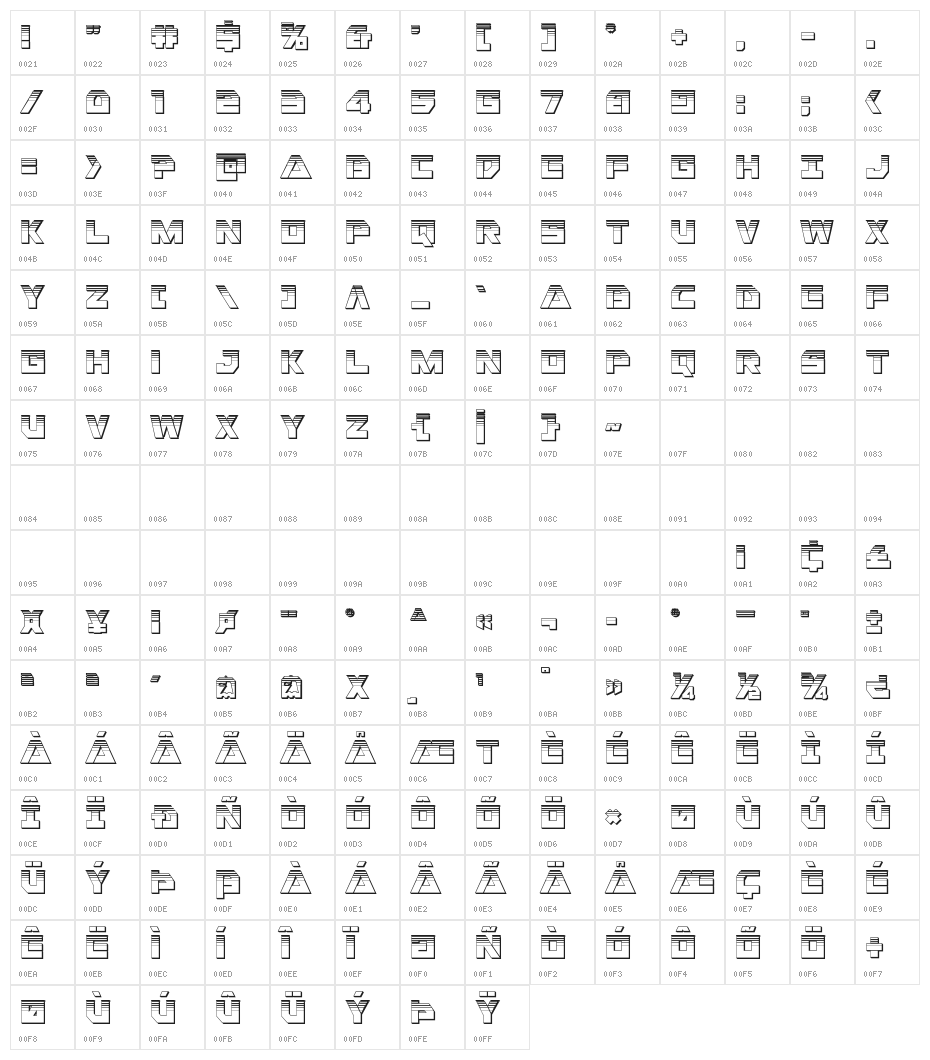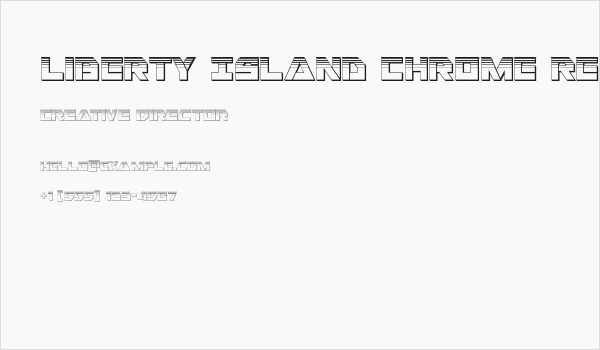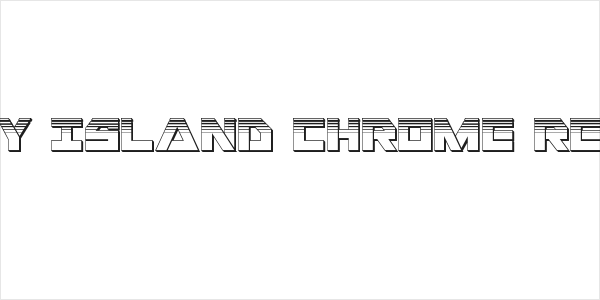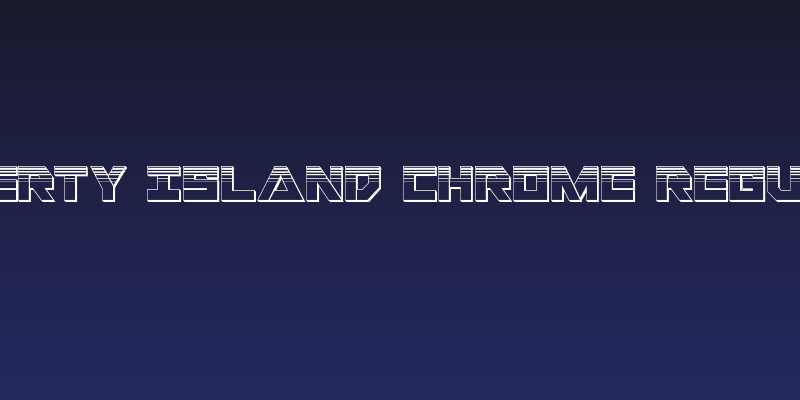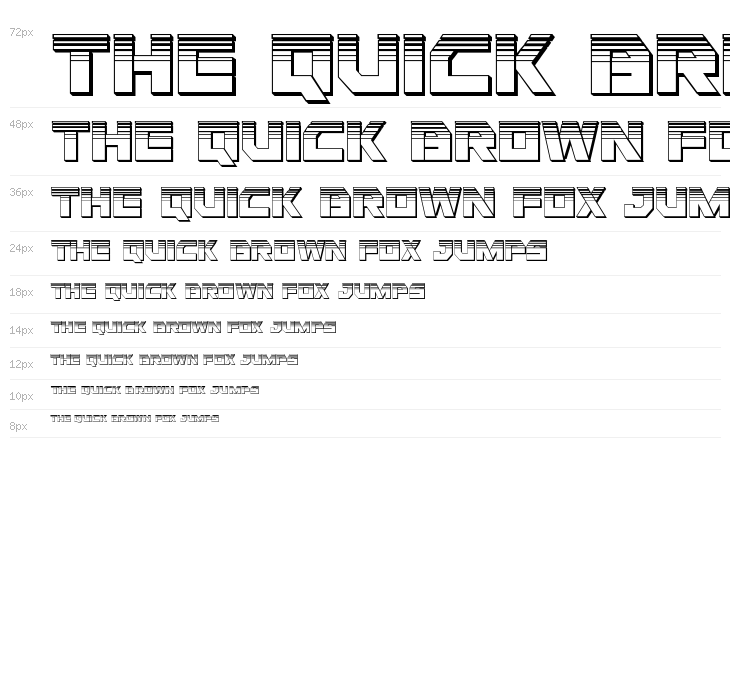
Liberty Island Chrome Regular Font
Liberty Island Chrome Regular Description
This font features a bold, geometric design with a three-dimensional effect created by layered lines. Each character is constructed with a series of parallel lines that give it a futuristic and industrial appearance. The uppercase letters are uniform in height, while the numbers and special characters maintain the same stylistic approach, ensuring consistency across all glyphs. The font's unique structure makes it stand out, with sharp angles and a sense of depth that adds to its visual impact.
Proposed ProjectsIdeal for futuristic designs, tech-related branding, video game titles, and posters requiring a strong visual impact.